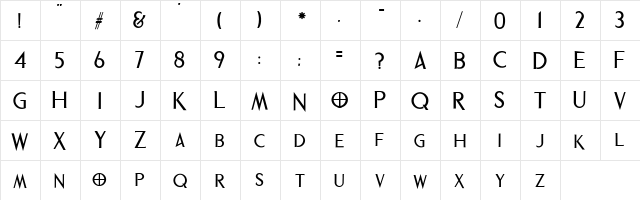
Phrixus Regular
Design Context for Phrixus Typeface
Phrixus is a composed and adaptable typeface that performs quietly and consistently across a wide range of design contexts.